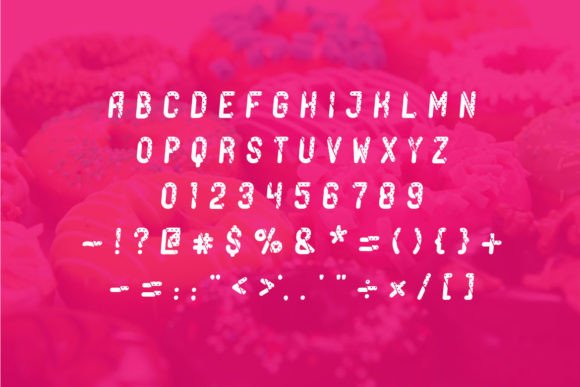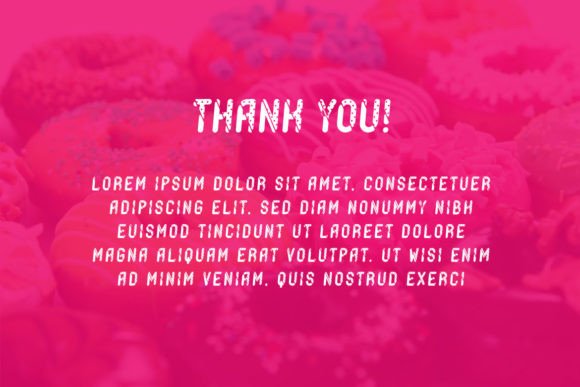
Introduction to Ponkadought Font
Have you ever stared at a blank canvas, eager to bring your creative vision to life, only to be stumped by the perfect font? We’ve all been there. But what if you had a secret weapon to elevate your designs and make them truly unforgettable? Enter the Ponkadought Font, a delightful display font that’s about to revolutionize your creative projects.
As a designer, you know how much a great font can make or break a design. That’s why we’re excited to introduce you to the Ponkadought Font, a high-quality design resource that’s perfect for any creative project. With its transparent background and free download, you can easily incorporate it into your designs without any hassle. Whether you’re working on a branding project, a social media campaign, or a digital art piece, the Ponkadought Font is sure to bring a touch of whimsy and personality to your work.
Get ready to unlock the full potential of your designs with the Ponkadought Font. Its versatility and charm make it an invaluable addition to any designer’s library, and we can’t wait to see the amazing things you create with it!
Ponkadought Font
- High-quality design resource suitable for creative projects, with a unique and modern style.
- Comes with a transparent background, making it easy to customize and integrate into various design elements.
- Perfect for use in logos, branding, typography, and other creative projects where a modern and unique font is required.
Honest Review: Ponkadought Font
As a designer, I’m always on the lookout for high-quality design resources that can elevate my creative projects. Recently, I had the chance to work with the Ponkadought Font, and I’m excited to share my honest review.
- ✨ Unique and playful design style that adds a touch of personality to any project
- ✨ High quality and crisp typography, perfect for headings and titles
One of the standout features of the Ponkadought Font is its transparent background, which makes it easy to customize and integrate into any design.
- ⚠️ Limited character set and language support, which may be a limitation for some designers
- ⚠️ Not ideal for large blocks of text, as it can become overwhelming
Overall, I’m impressed with the Ponkadought Font and would recommend it to designers looking for a high-quality, unique font for their creative projects.
To get the most out of the Ponkadought Font, use it sparingly and in conjunction with other high-quality design elements. Experiment with different font sizes and styles to create a visually appealing design.
The Ponkadought Font is ideal for creative projects such as graphic design, branding, and typography-based designs. Its unique style and high-quality design make it a valuable addition to any design resource library.